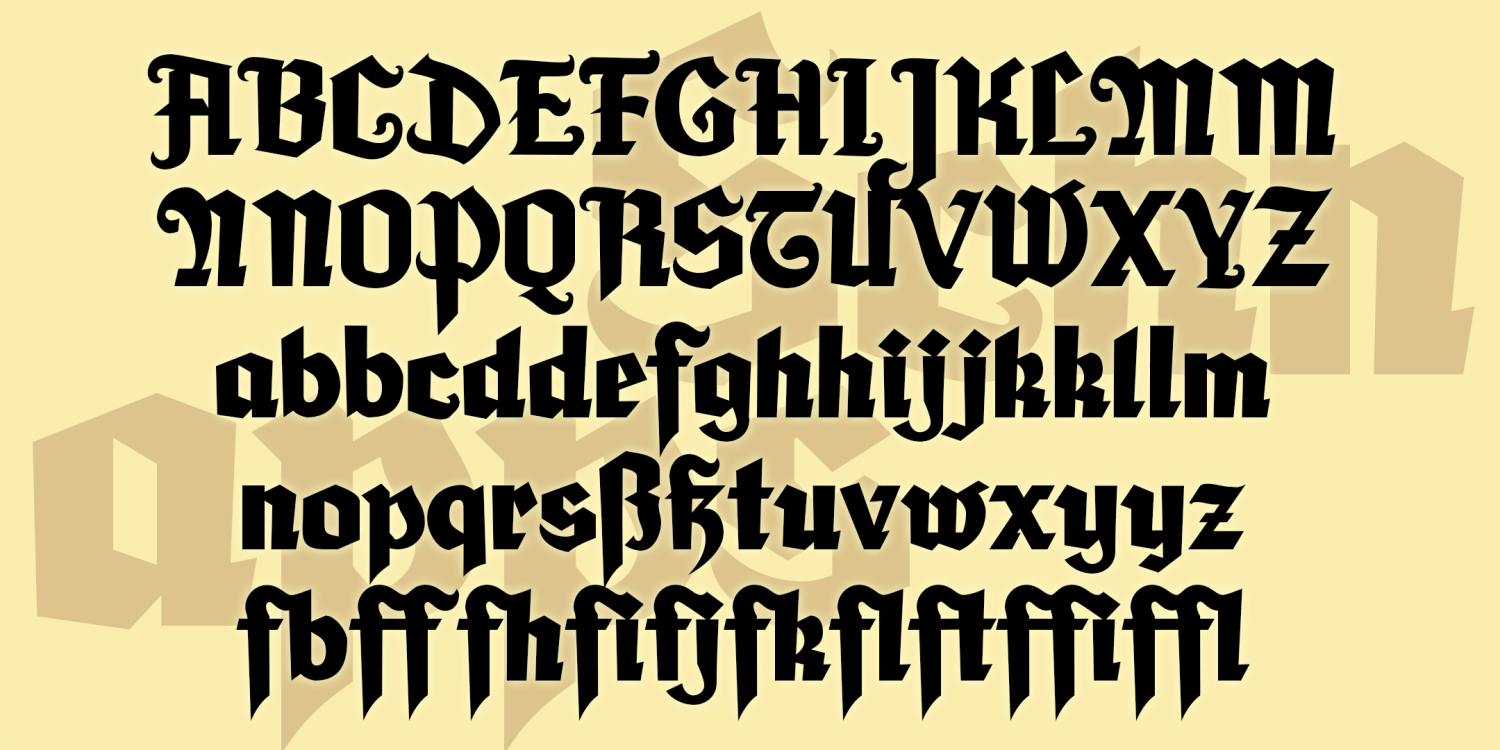
Schnapps
About Schnapps
SCHNAPPS is a lively calligraphic font that captures a jolly German character. Could be used to suggest Oktoberfest, Christmas, or Old World tradition. Bolder and more legible than many blackletter fonts. SCHNAPPS was inspired by the hand-lettered titles…